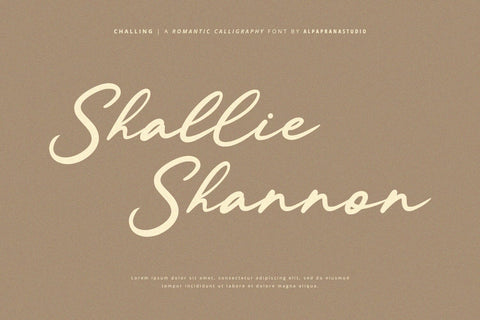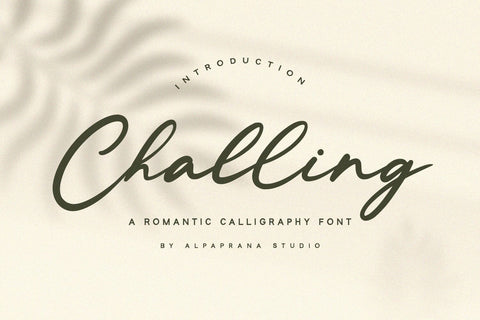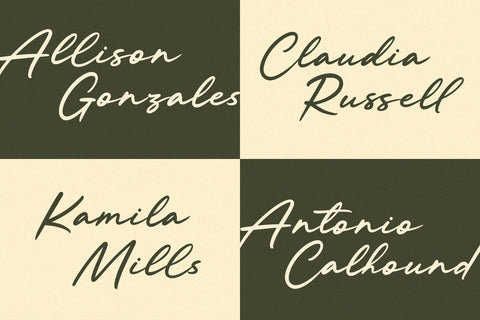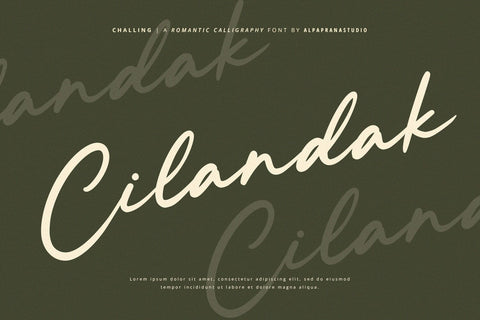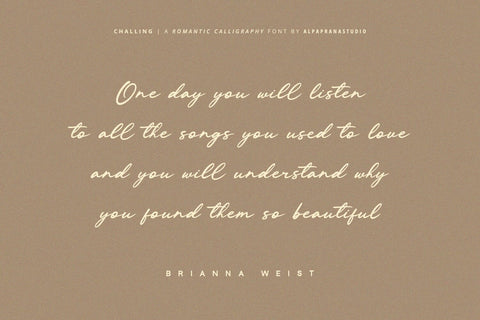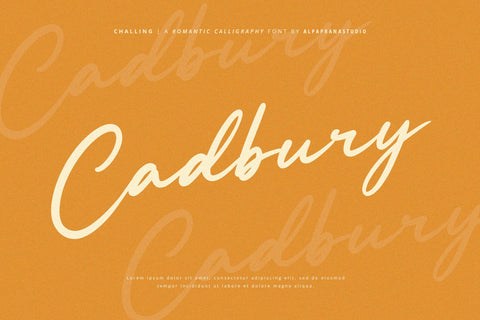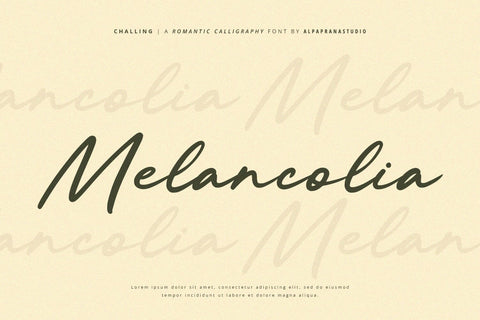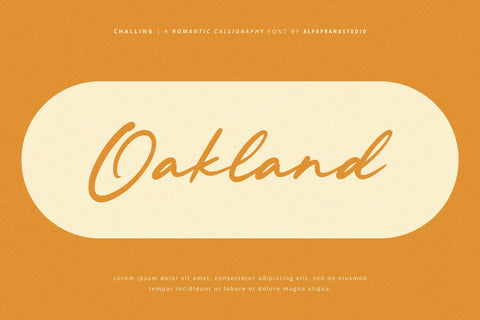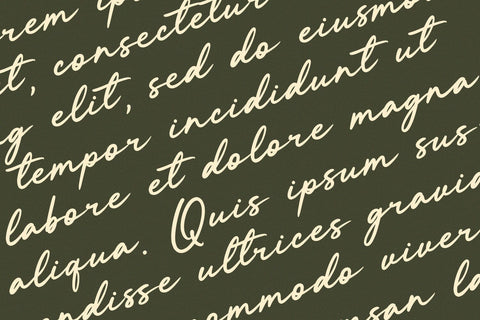
Challing - Romantic Calligraphy Font
Challing is a romantic calligraphy font with natural and modern feels. It will be perfectly used for Branding, Logo Design, Lettering, Logotype, Clothing, Poster, magazine, packaging, posters, shopping bags, t-shirts, book covers, photography, special events and other design project.